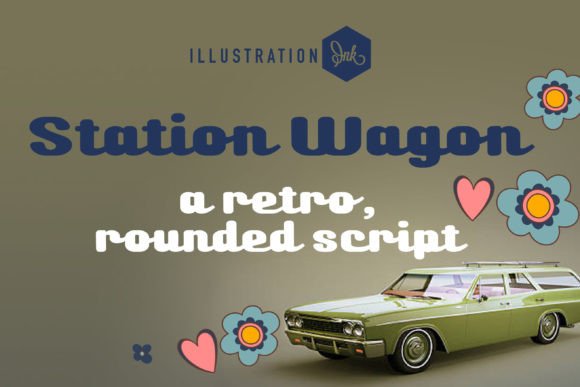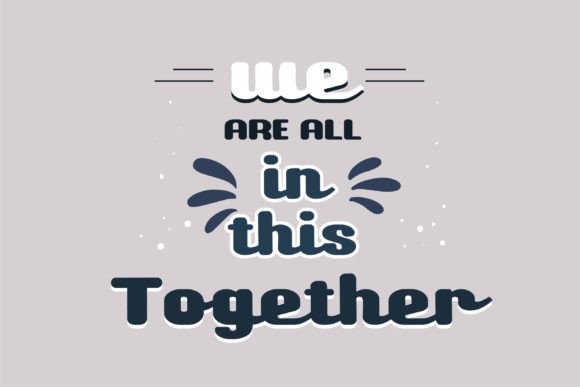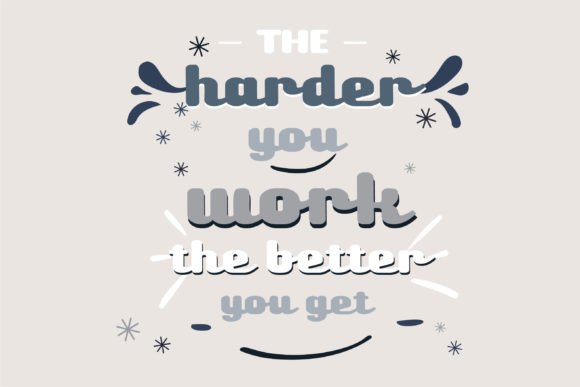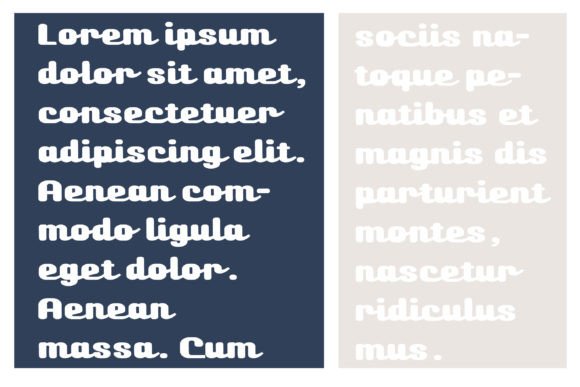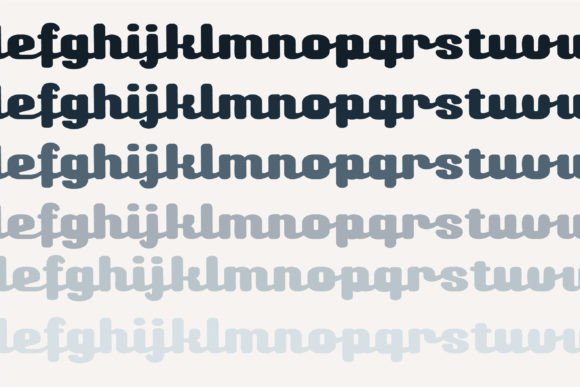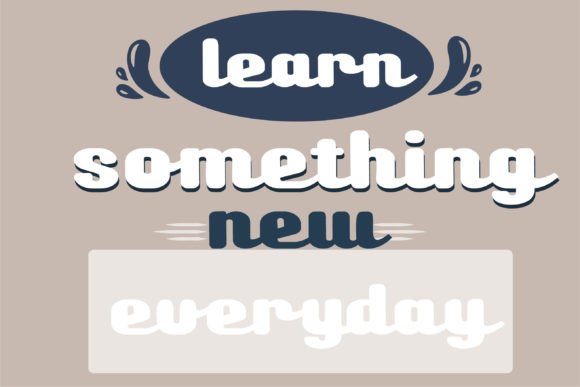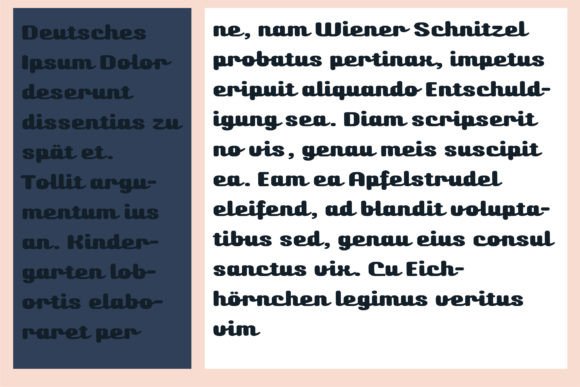
Station Wagon Font Font
About Station Wagon Font
This fun hand-crafted script font is a retro-looking cursive featuring upright and heavy-rounded lettering. The distinctive and playful design of the font adds a retro vibe to any project, making it perfect for creative endeavors that seek a touch of nostalgia or a vintage aesthetic.
The upright and heavy-rounded lettering in this script font creates a bold and eye-catching appearance. Whether you’re working on posters, logos, or any design project that calls for a lively and expressive typeface, this font is crafted to bring a sense of fun and personality.
Imagine using this font for a retro-themed poster, where its cursive script captures the essence of a bygone era. Picture it in branding materials, creating a distinct and memorable visual identity. Whether applied to digital graphics or tangible materials, this retro-looking cursive font is designed to be a playful and attention-grabbing choice for your creative endeavors.